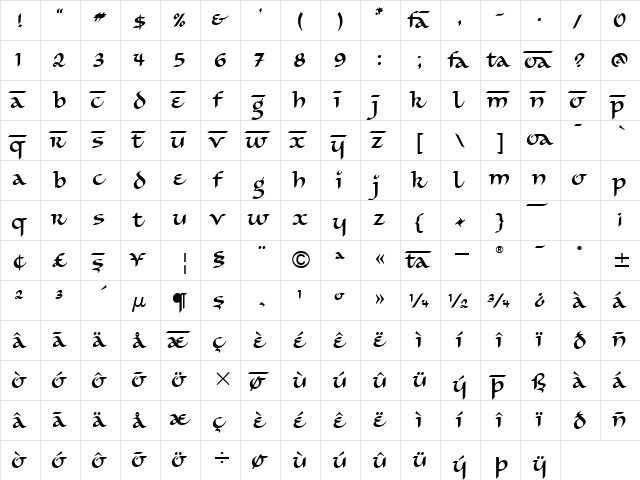
SimranITC TT Regular Font Preview
SimranITC TT Regular
Design Context for SimranITC TT Typeface
SimranITC TT is a composed and adaptable typeface that performs quietly and consistently across a wide range of design contexts.